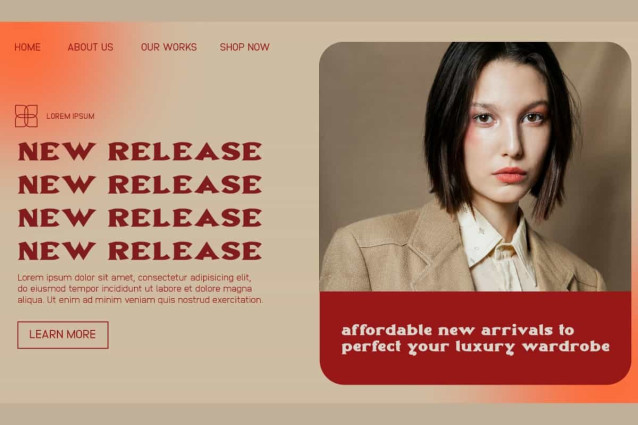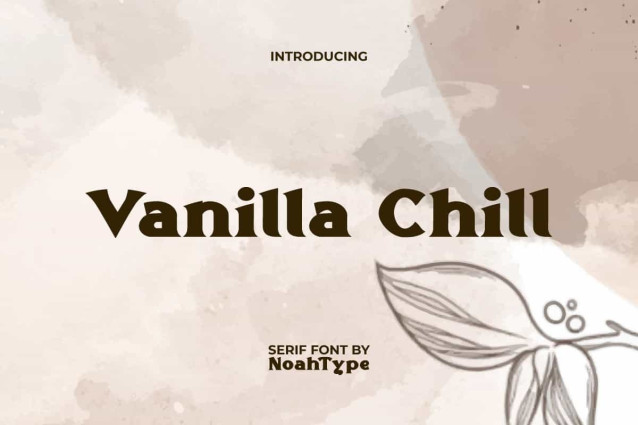
Vanilla Chill Font
Vanilla Chill Font is a unique and beautiful serif font. This font has a thick and charming character so that it can radiate beauty that is clearly read. It will be perfect for any design, such as signage, brand image, cover, custom design, invitation, label, marketing material, menu, poster, product packaging, quotes, stationery, web, and many more!
Vanilla Chill Font includes full set of Uppercase and Lowercase Basic Characters, Numerals and Punctuation. This font will be great for many industries, such as advertising, beauty product, fashion, cafe, event or festival, jewelry and accessories, photography, printing, publishing, restaurant, etc.